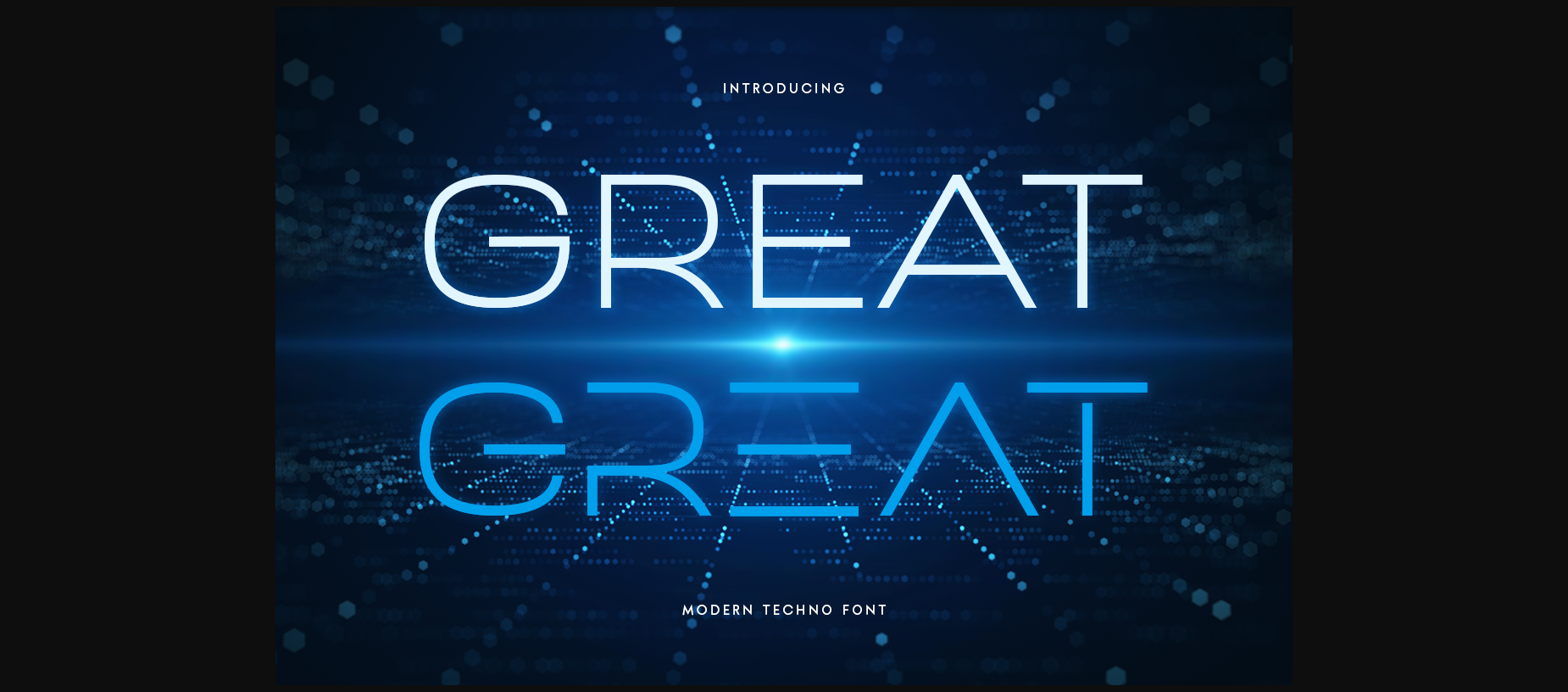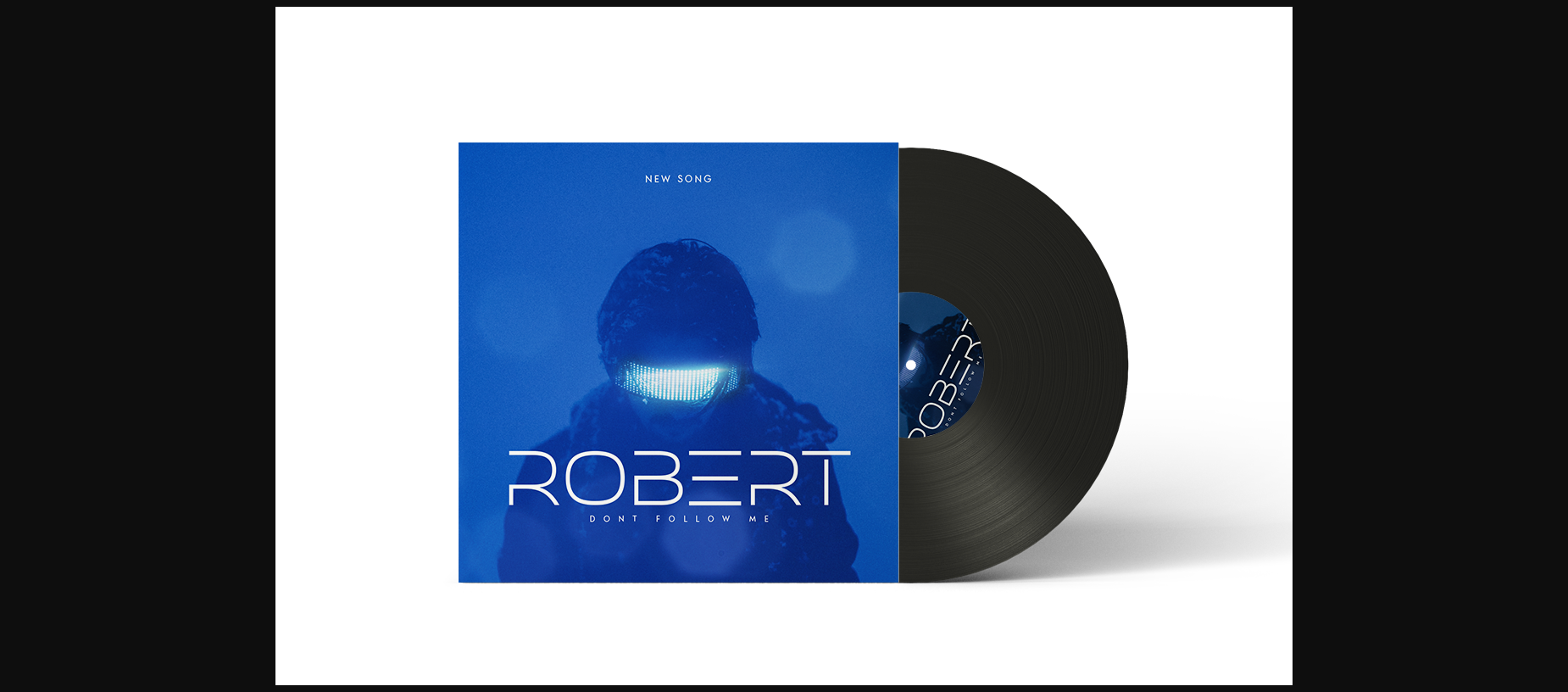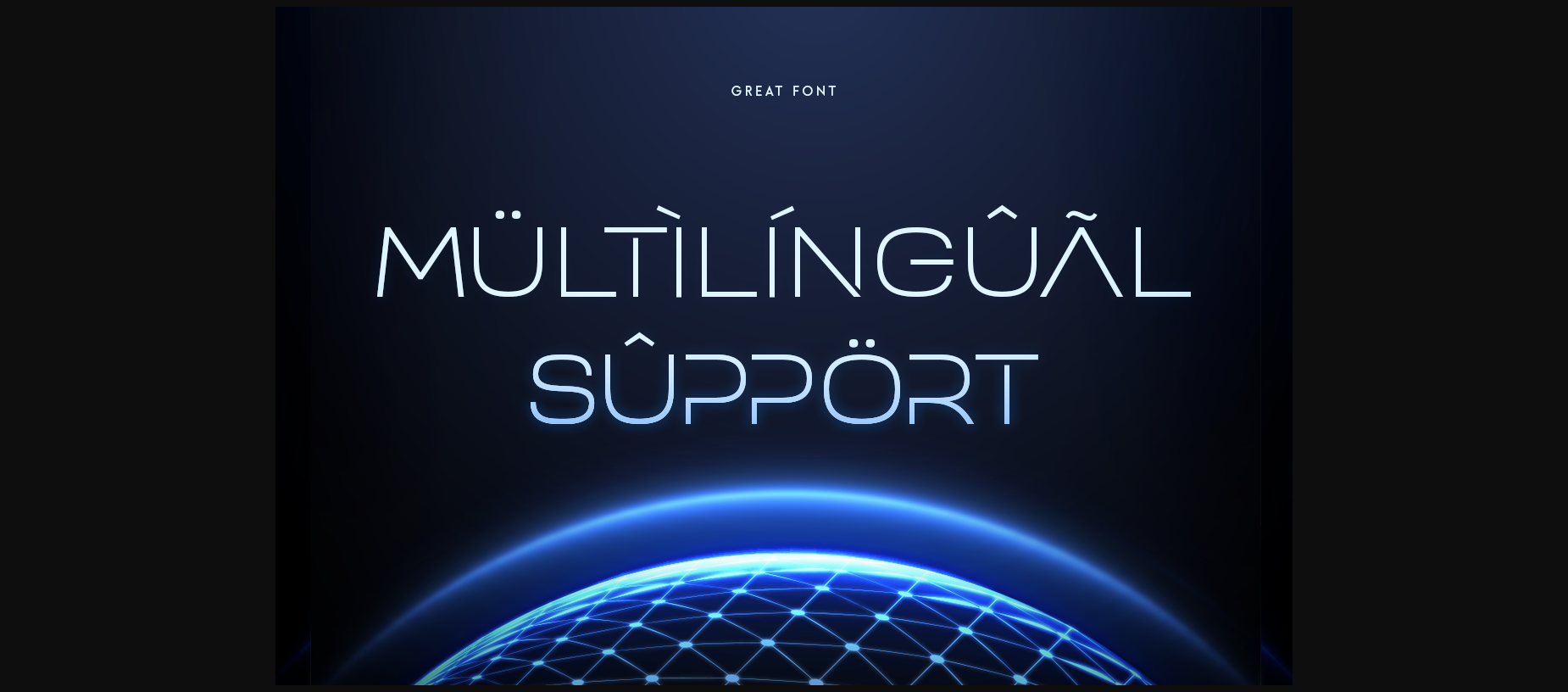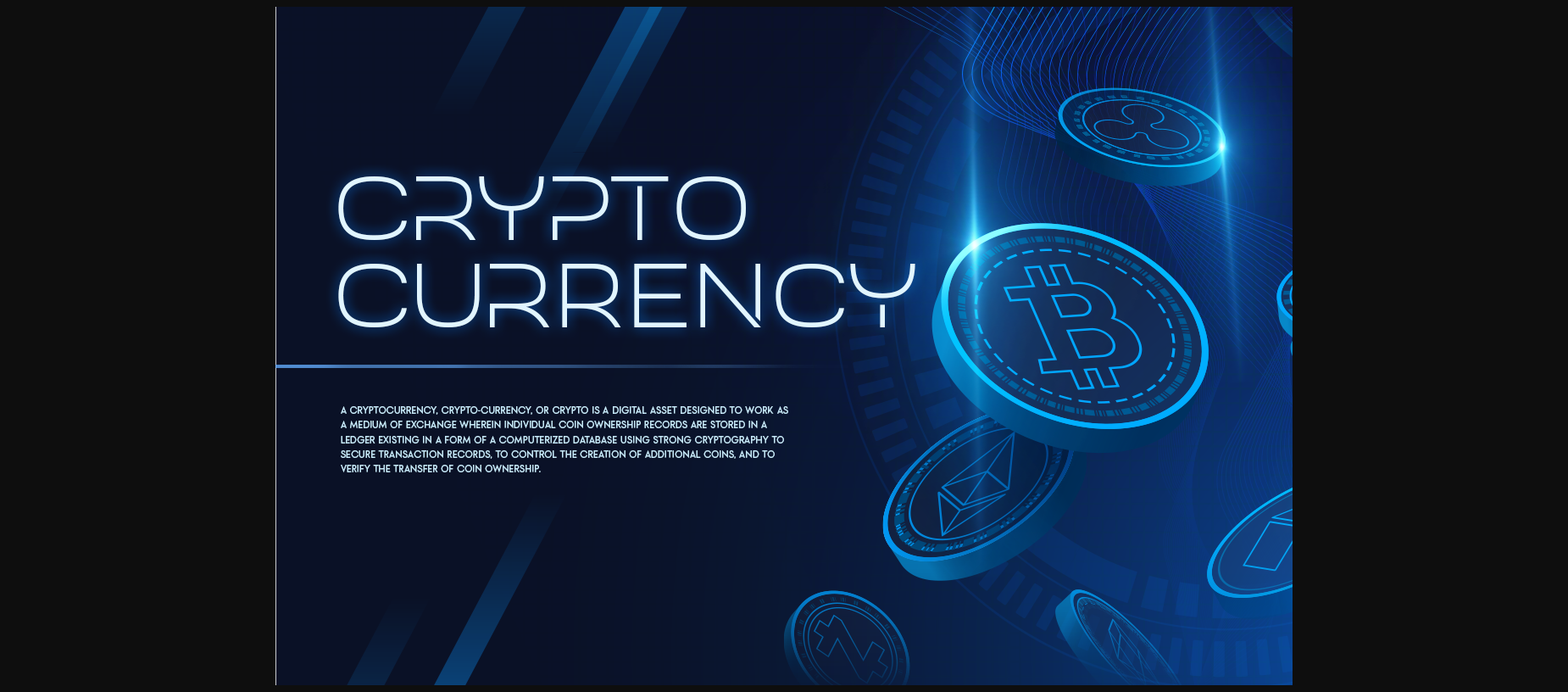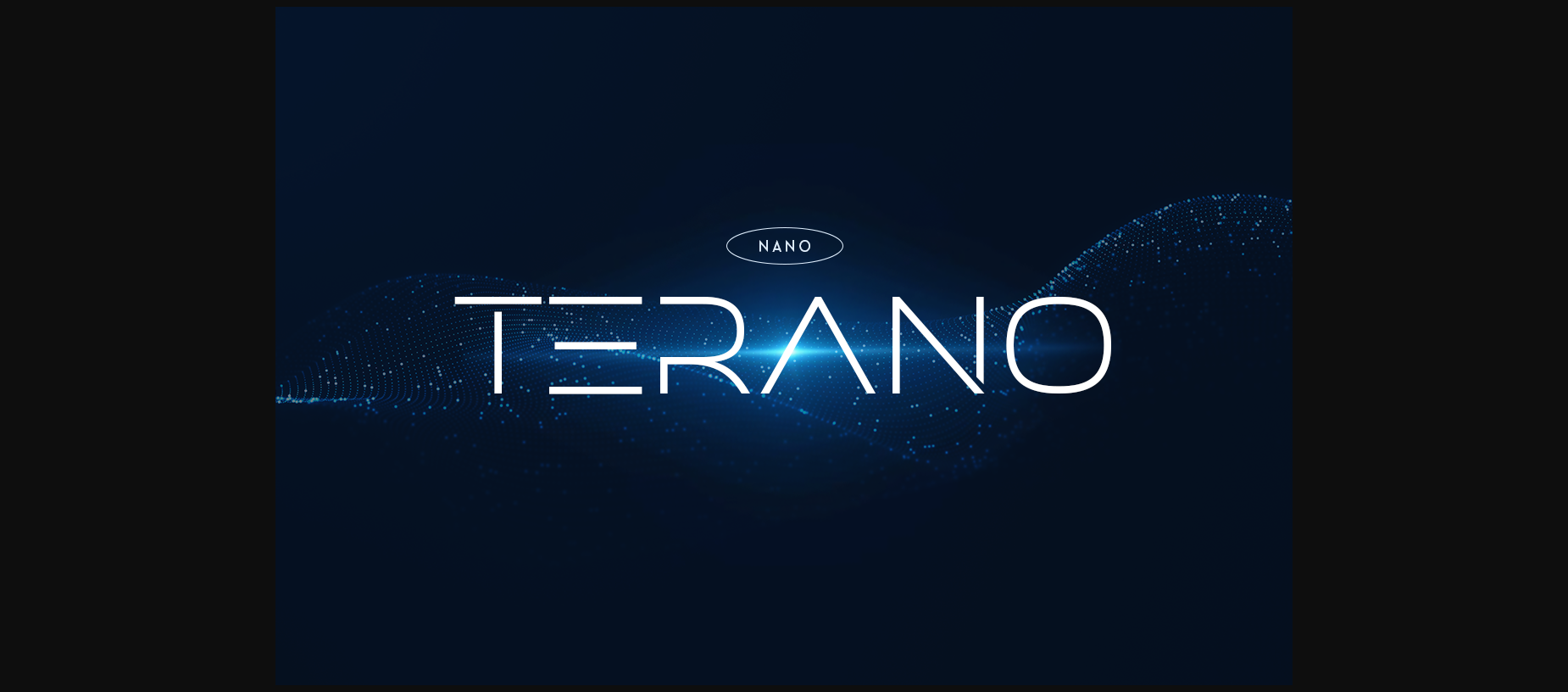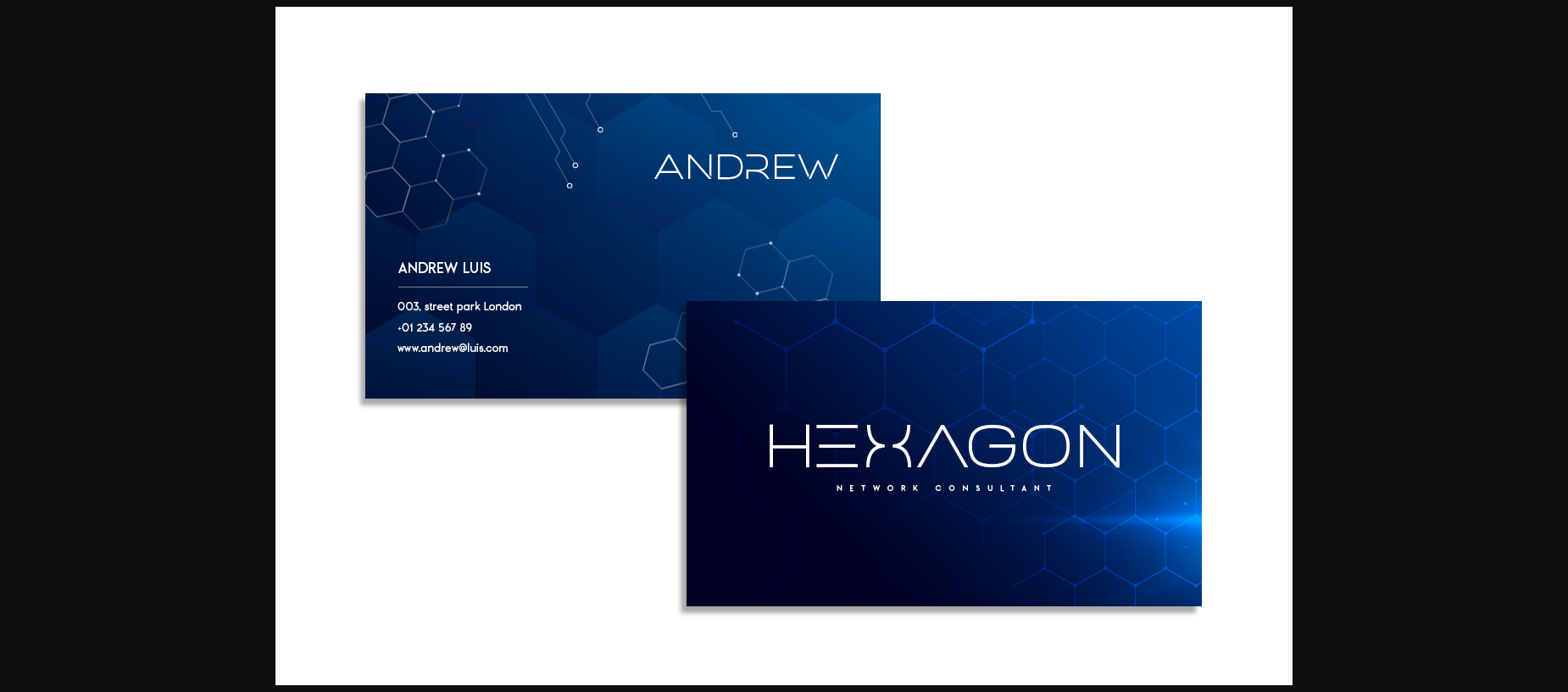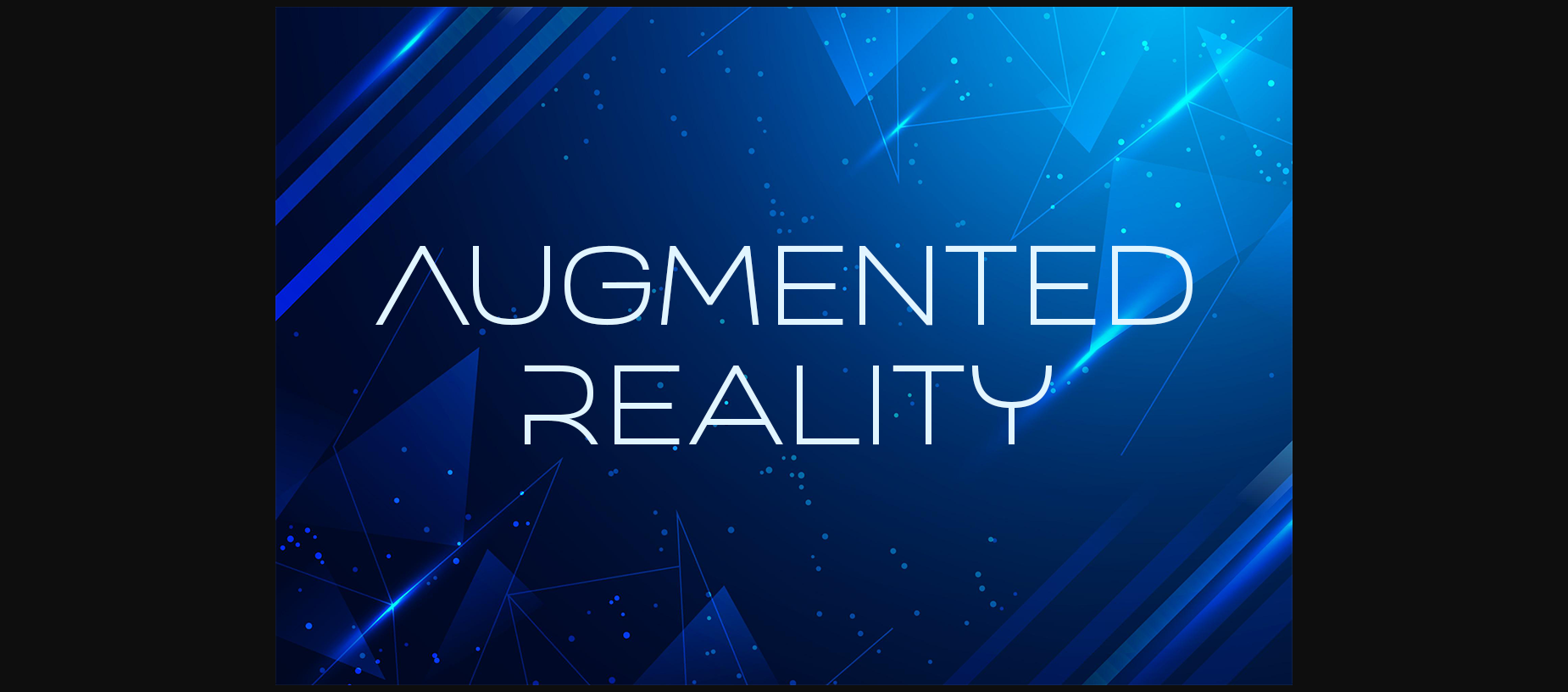
Great Font
About Great Font
Great is a sleek and futuristic sans-serif typeface designed with precision and clarity. Its thin strokes and clean lines give it a modern and minimalist appearance, making it ideal for conveying a sense of sophistication and innovation in branding, editorial design, and digital applications.